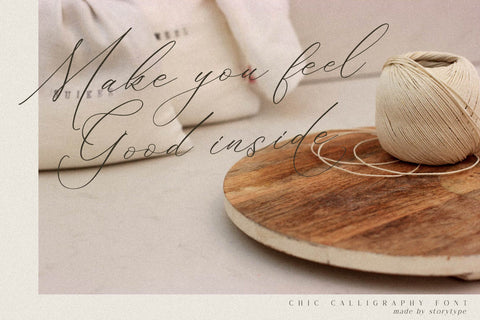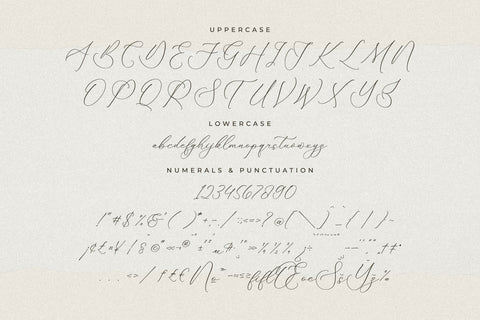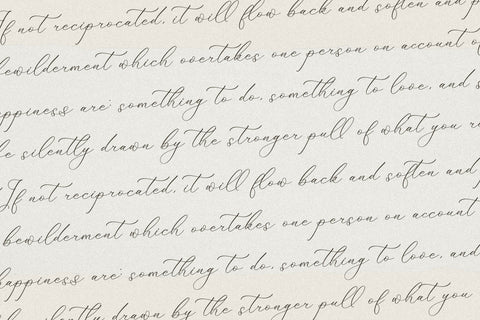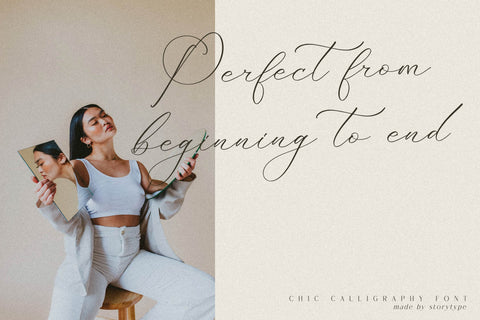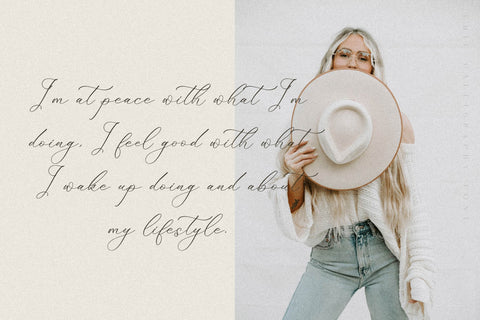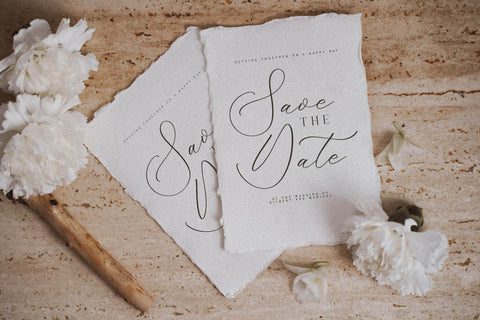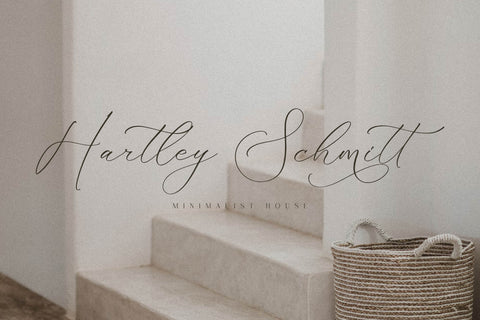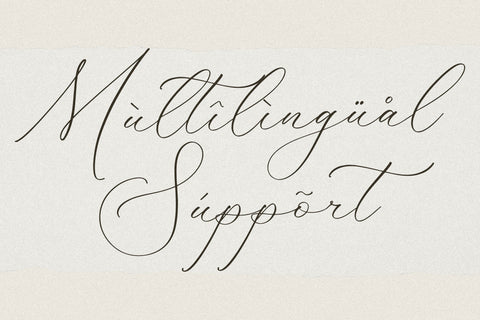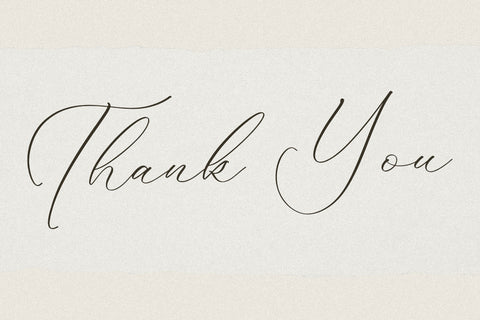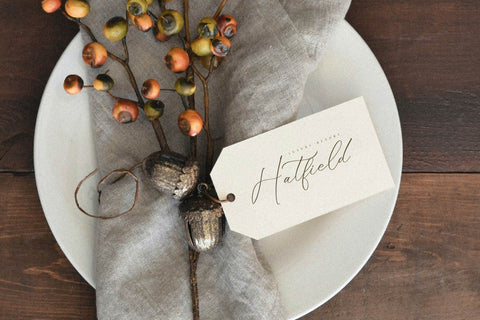
Fattrios Schudnel - Chic Calligraphy Font
Proudly present Fattrios Schudnel - Chic Calligraphy Font , created by Storytype,
A luxury script that has own unique style & modern look.